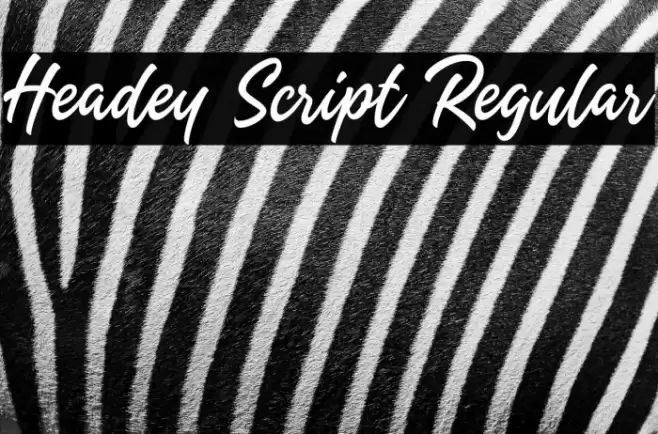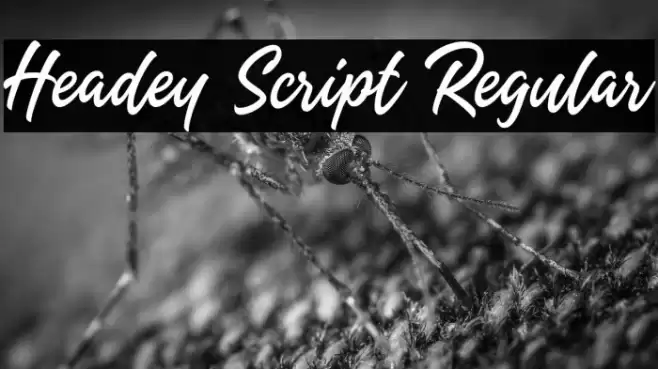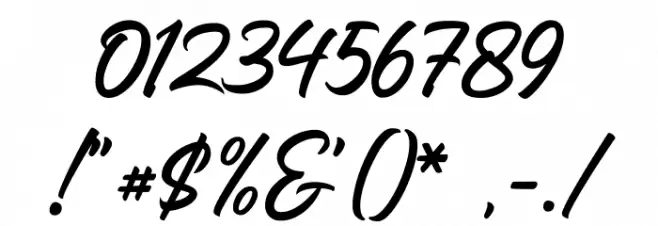
Headey Script Regular Font
Headey Script Regular Description
This font exudes a dynamic and expressive style with its flowing script design. The characters are interconnected, creating a sense of movement and fluidity. The strokes are bold and confident, with a slight slant that adds to its energetic appearance. The uppercase letters are elegantly crafted, while the lowercase letters maintain a consistent rhythm. Numbers and special characters are designed to complement the overall script style, ensuring a cohesive look. This font is ideal for projects that require a personal touch or a sense of elegance and sophistication.
A dynamic and expressive script font with bold, flowing strokes from Regular fonts.
- Font: Headey Script Regular
- Proposed Projects: Ideal for wedding invitations, branding, logo design, and elegant stationery.
- Character Spacing: Tight
- Use Case: Logos, Headlines, Invitations